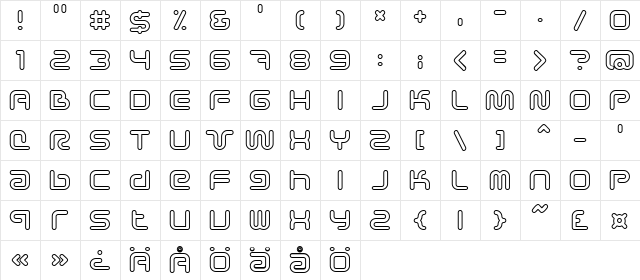
Sci Fied Outline Regular Font Preview
Sci Fied Outline Regular
Design Context for Sci Fied Outline Typeface
Sci Fied Outline channels digital-age aesthetics through its sharp, structured letterforms — ideal for brands that want to signal innovation.
Pro Tip: Try Sci Fied Outline with generous letter-spacing in UI labels and navigation — the geometric forms benefit from room to breathe.